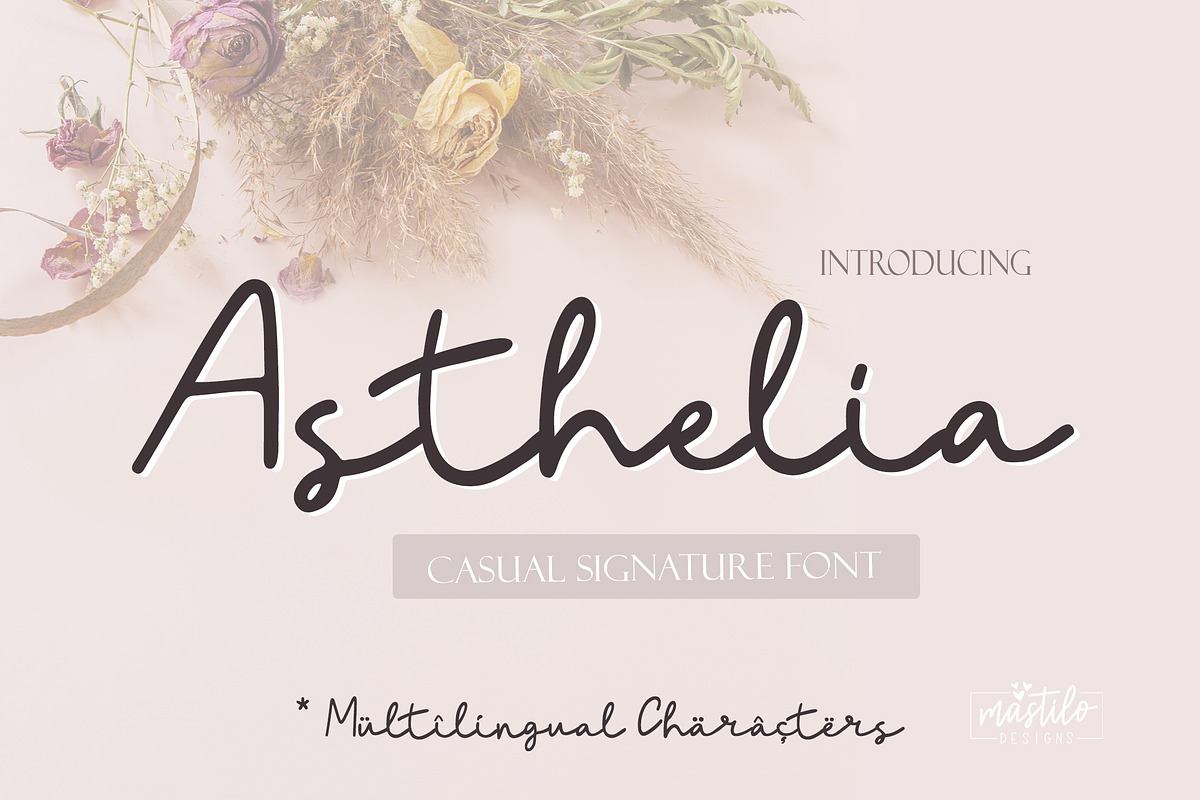
Add a touch of elegance and personality to your designs with Asthelia Casual Signature Script Font Free Download. This handwritten script font mimics the natural flow of an authentic signature, making it a perfect choice for logos, personal branding, social media posts, wedding invitations, and stylish packaging.
Asthelia brings a casual yet refined look with its fluid strokes, smooth curves, and well-balanced letterforms. It captures the charm of hand-drawn calligraphy while maintaining legibility and versatility. Featuring uppercase and lowercase letters, ligatures, and essential punctuation, it’s ideal for experimenting in mockups and visual drafts.